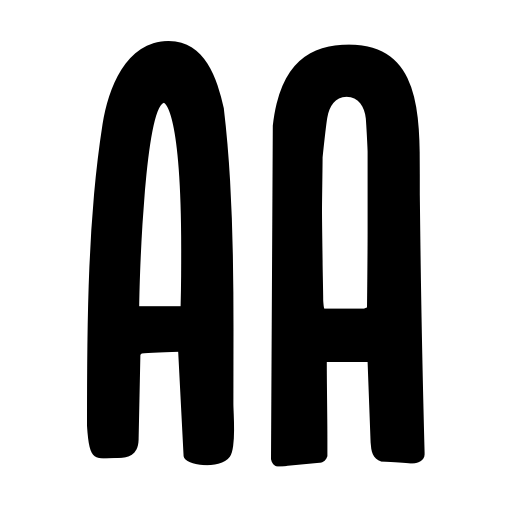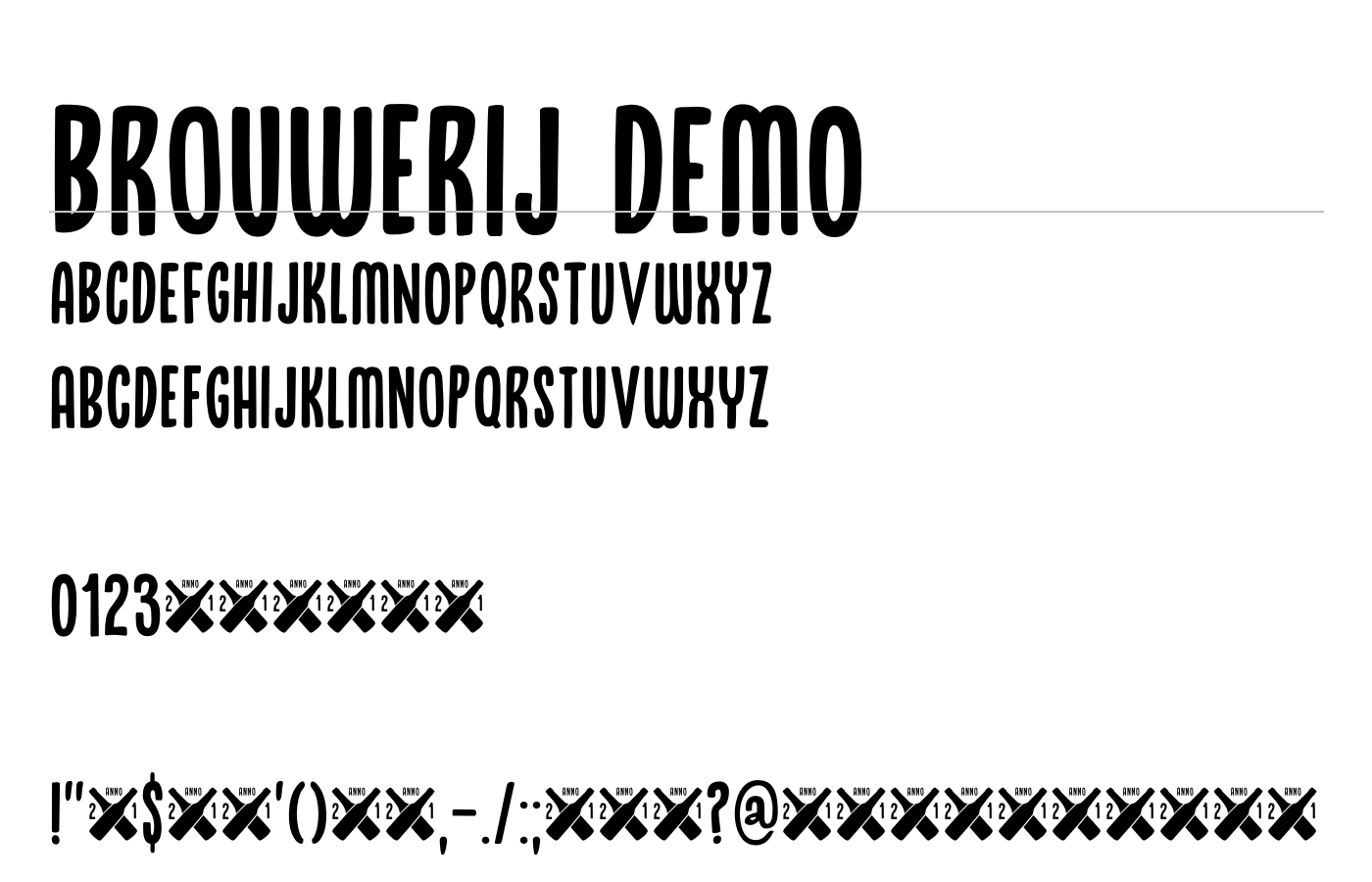
Brouwerij DEMO is a condensed, sans serif display font with a quirky, hand-drawn vibe characterized by its tall, rounded letterforms and playful irregularity. Its narrow width and slightly uneven strokes give it an informal, approachable feel, making it ideal for creative branding, packaging, and headlines where a unique, friendly personality is desired. This font works well in designs seeking a modern yet whimsical character that stands out with charm and warmth.
Brouwerij DEMO Font
About Brouwerij DEMO Font